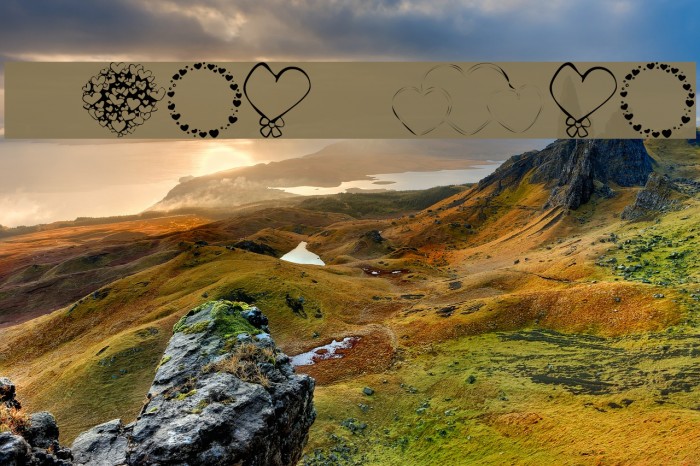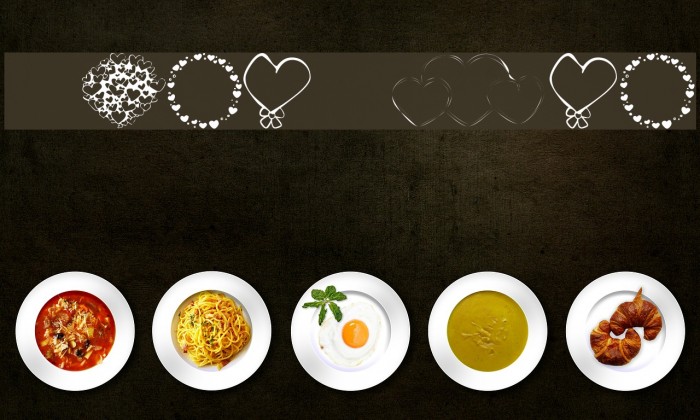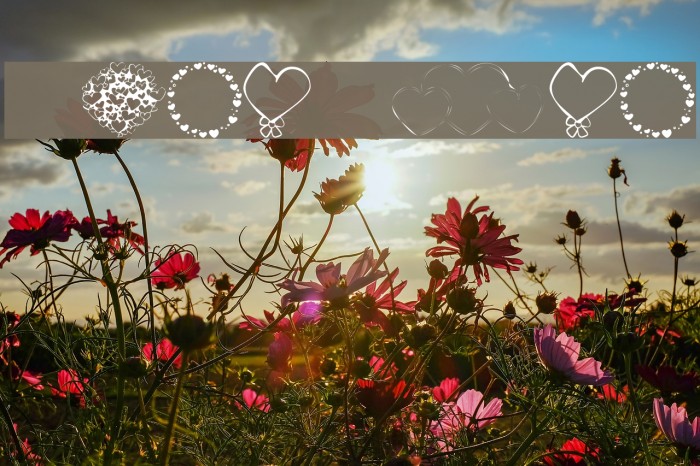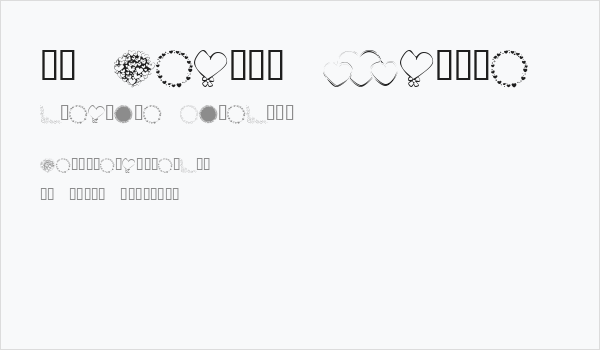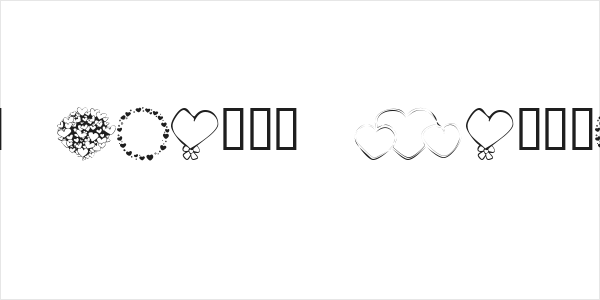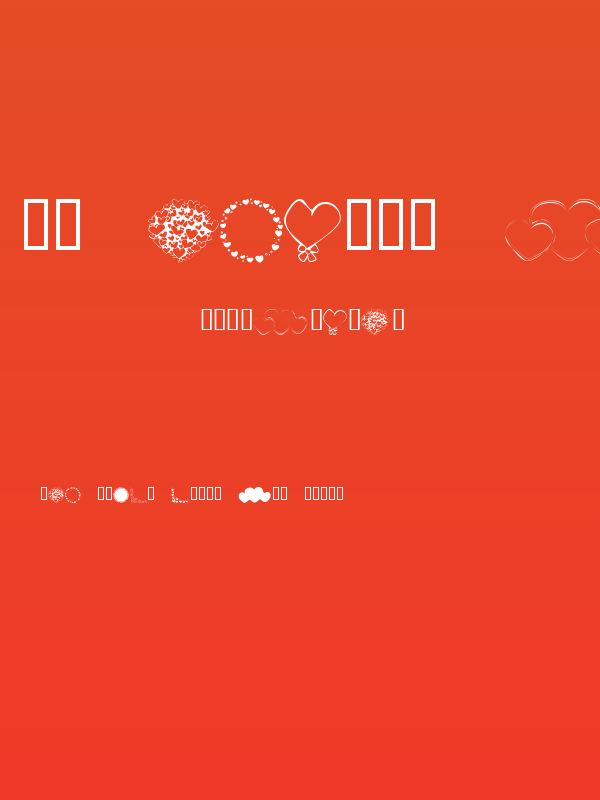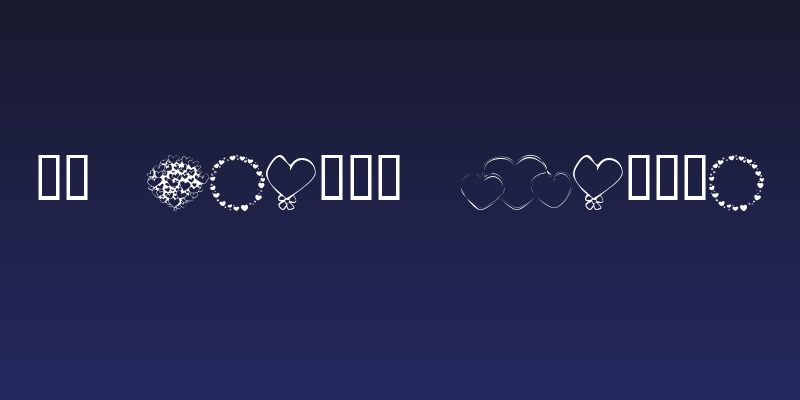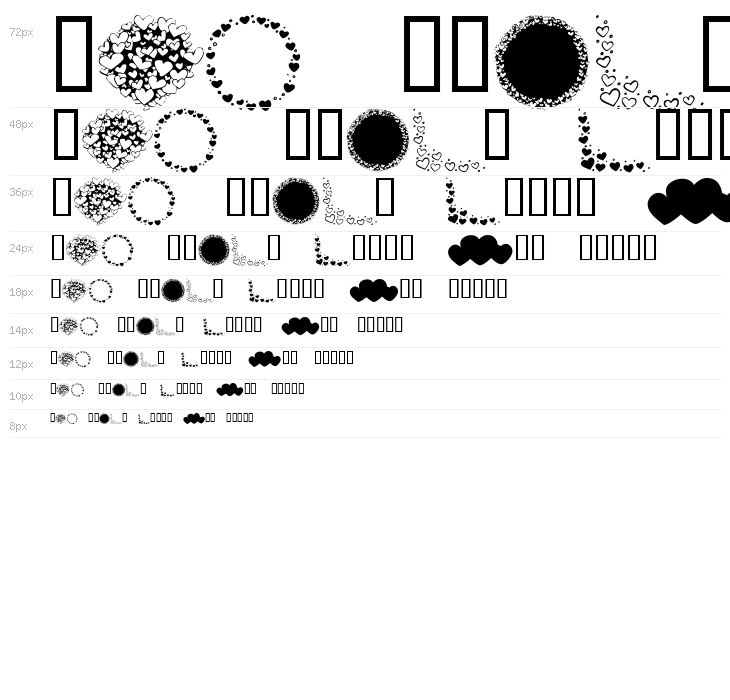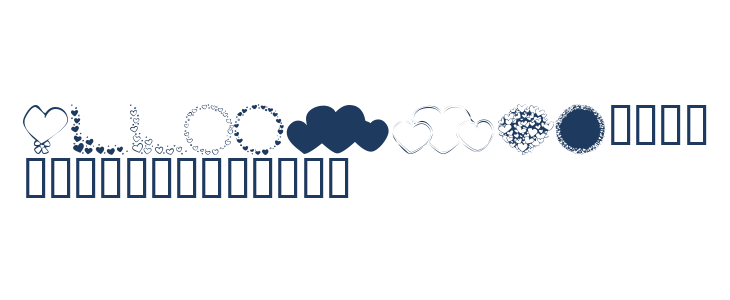
KR Hearts Galore Font
KR Hearts Galore Description
This decorative font is characterized by its playful and whimsical heart-themed design. Each character is creatively constructed using heart shapes, either as outlines or filled patterns, giving it a unique and charming appearance. The font is perfect for adding a touch of romance or fun to any project. Its distinct style makes it stand out, with each letter and symbol crafted to maintain a consistent theme throughout. The font's design is both intricate and bold, making it suitable for eye-catching headlines or decorative purposes.
| Use Case | Headlines, Logos, Decorative text |
| Proposed Projects | Ideal for Valentine's Day cards, wedding invitations, love-themed posters, and playful graphic designs. |